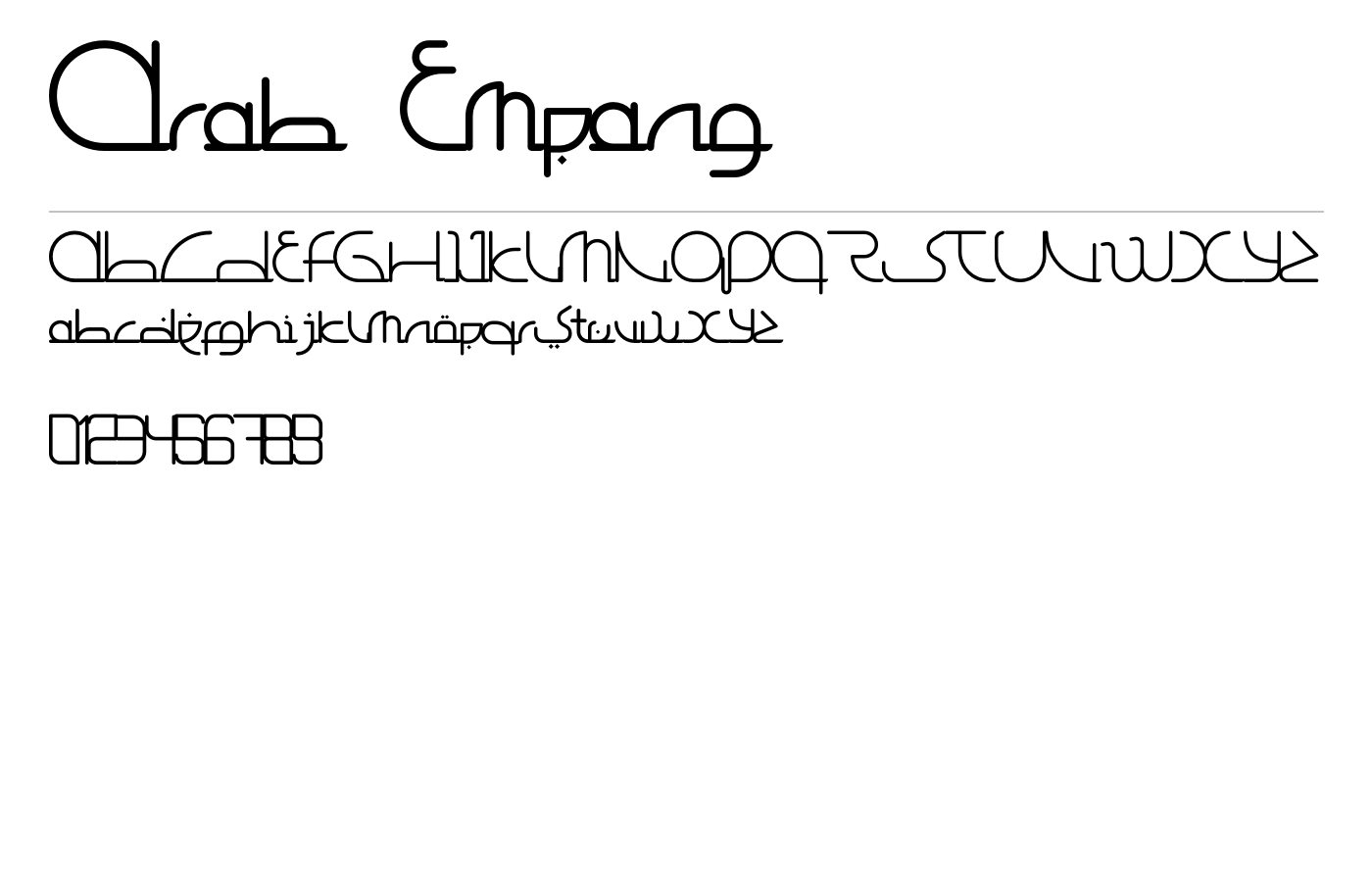
Arab Empang is a unique, modern sans serif font with a futuristic and geometric design characterized by thin, continuous strokes that create an interconnected, almost wireframe look. Its condensed width and high x-height give it a sleek, technical personality, making it ideal for creative branding, tech-oriented projects, and distinctive headline use where a contemporary and innovative vibe is desired.
Arab Empang Font
About Arab Empang Font